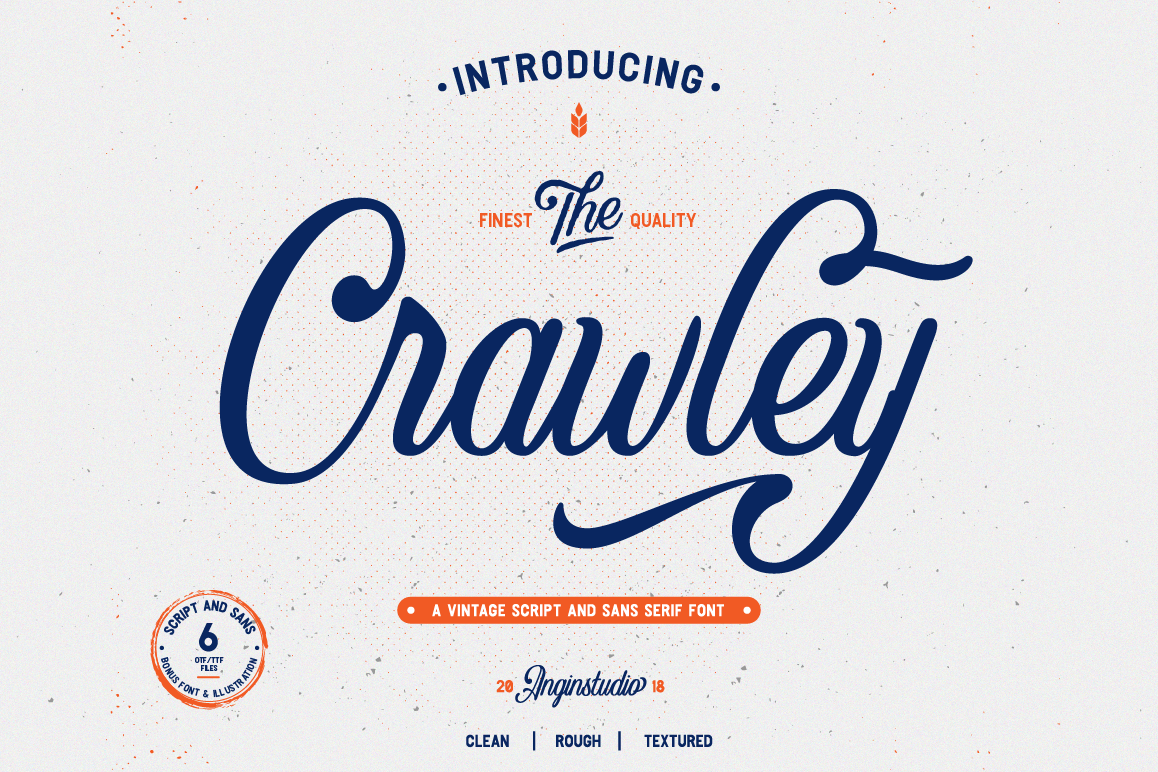
The Crawley
In the world we live in when so much typefaces has been made, people still need the new fresh one to representation their expression and what their speak.
Now let us introduce you our new font called "The Crawley"Crawley is a vintage script based on our hand lettering, created carefully to make a good flow and make you feel something, this font inspired by the old american packaging, signs, and labels.Crawley comes with 3 styles
• Clean
• Rough
• Textured
Crawley opentype feature with ligature, stylistic alternates, and directionary alternates allow you to mix and match of letters to make your own good design. also Crawley comes with multingual supportwhats inside